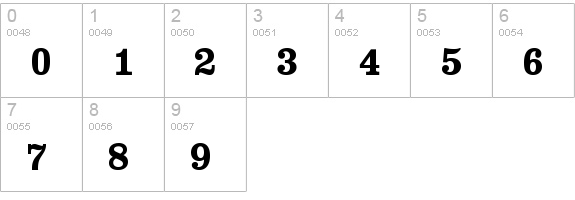
ClarendonEF-Bold Font Details
ClarendonEF-Bold is a strong, high-contrast variant in the ClarendonEF typeface family \xE2\x80\x94 well suited to headlines, attention-grabbing titles, and strong calls-to-action.
ClarendonEF-Bold font is a classic and robust typeface that exudes confidence and strength. Its bold and sturdy letterforms make it perfect for headlines, titles, and branding applications. With a timeless appeal and excellent legibility, ClarendonEF-Bold stands out in any design project. The best part is that ClarendonEF-Bold is available for free download at FontsMarket.com. Whether you're a designer looking to add a touch of sophistication to your work or a business in need of a strong and reliable font for your marketing materials, ClarendonEF-Bold is the perfect choice. Download it today and elevate your designs with this exceptional typeface.